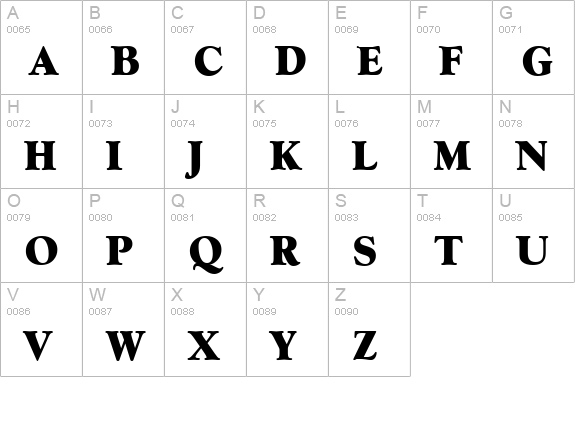
GoudySerial-Heavy-Regular is a heavy, high-impact variant in the GoudySerial typeface family \xE2\x80\x94 well suited to high-impact headlines, posters, and display advertising.
GoudySerial-Heavy-Regular is a bold and powerful font that exudes elegance and sophistication. With its strong and commanding presence, this font is perfect for making a statement in any design project. The thick strokes and classic serifs give GoudySerial-Heavy-Regular a timeless and refined look that is sure to catch the eye. The best part about GoudySerial-Heavy-Regular is that it is available for free download at FontsMarket.com. This means that you can easily access this stunning font and incorporate it into your projects without any cost. Whether you're working on a logo, poster, or any other design, GoudySerial-Heavy-Regular will add a touch of class and distinction. Download it today and elevate your designs with this exceptional font.